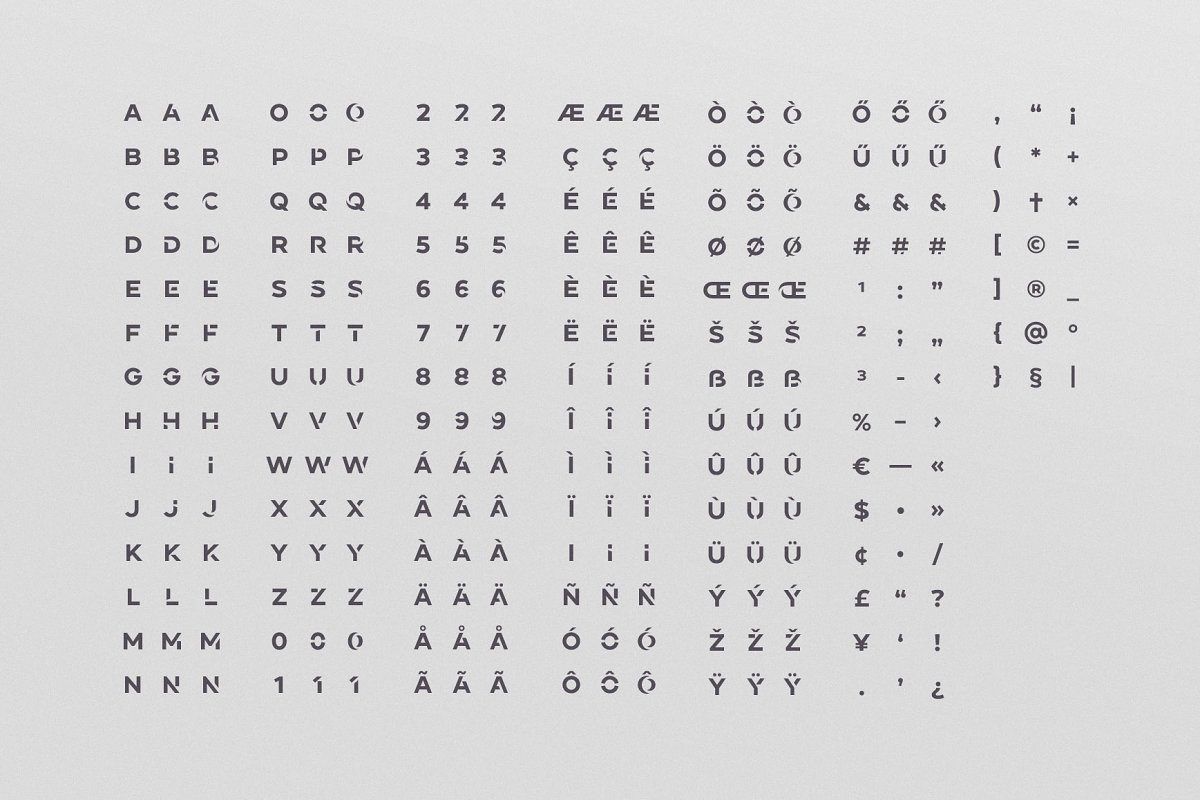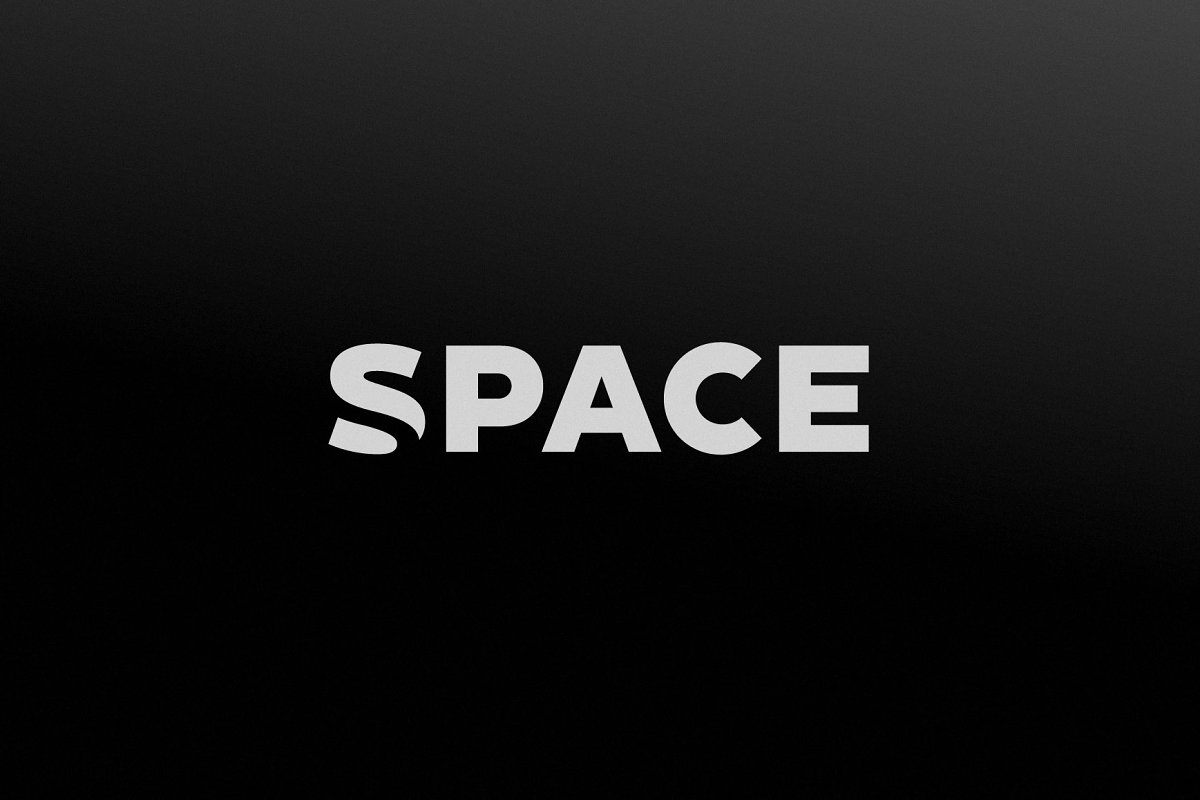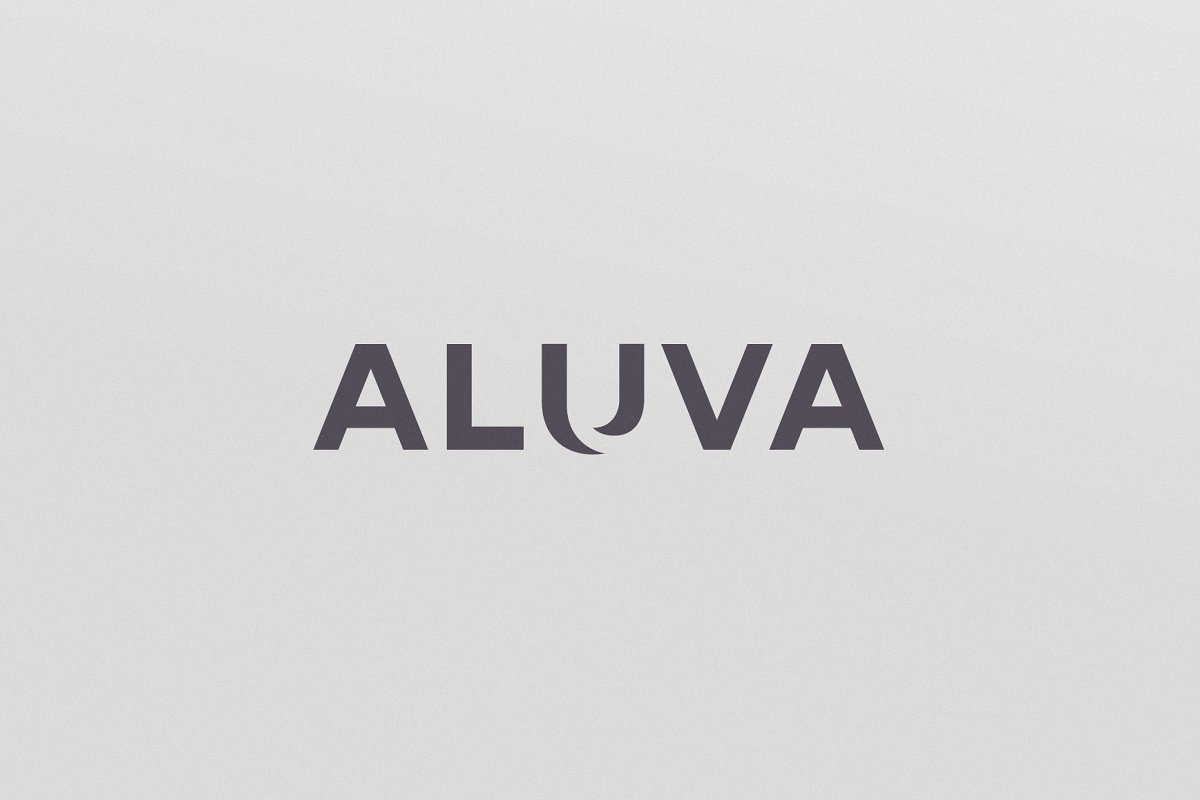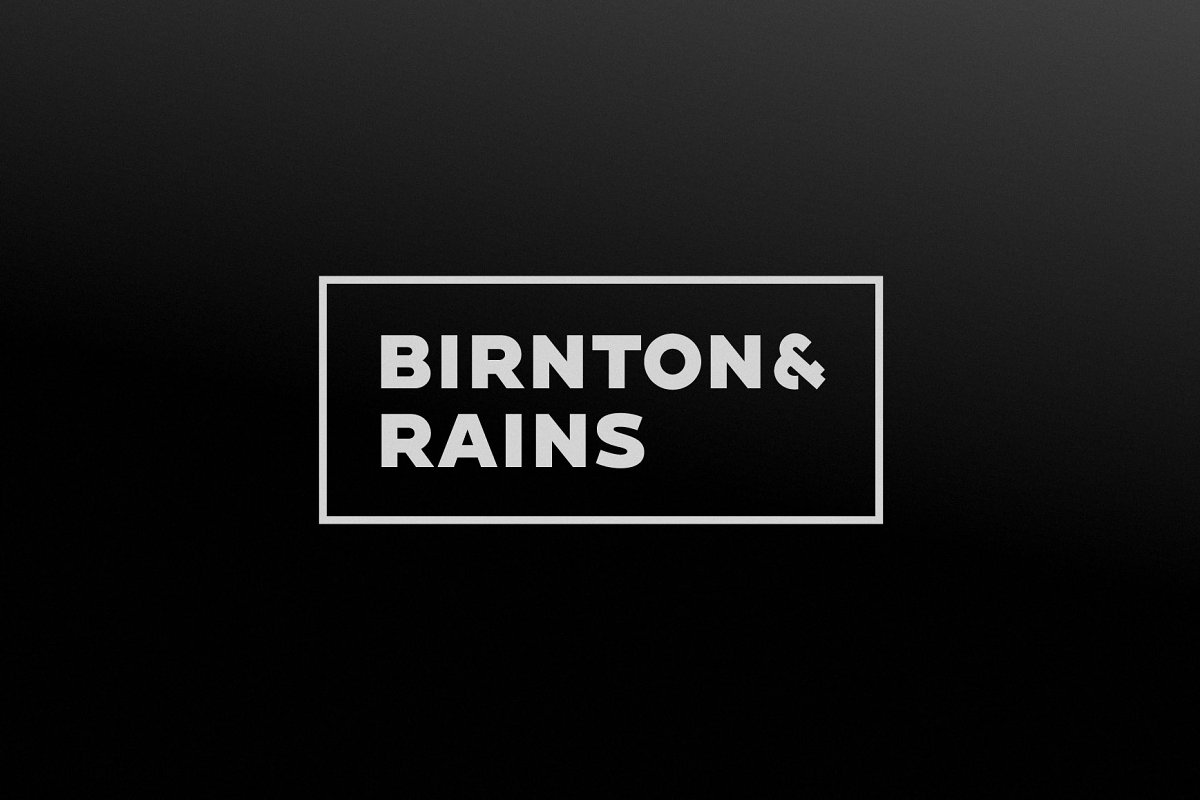
About the Connect BoldBlack For Logos Font
RM Connect is a new font for design of minimalistic logos, The font is suitable for creating wordmarks, titles, taglines, Use alternates to emphasize separate letters in your text, This package contains RM Connect Bold and Black, RM Connect Regular font: https://creativemarket, com/arbuz/4379088-Connect-Font-For-LogosEach font contains:3 options of Latin letters3 options of basic multilingual letters3 options of numbersextra characterspunctuationAll options of the characters are included in each font